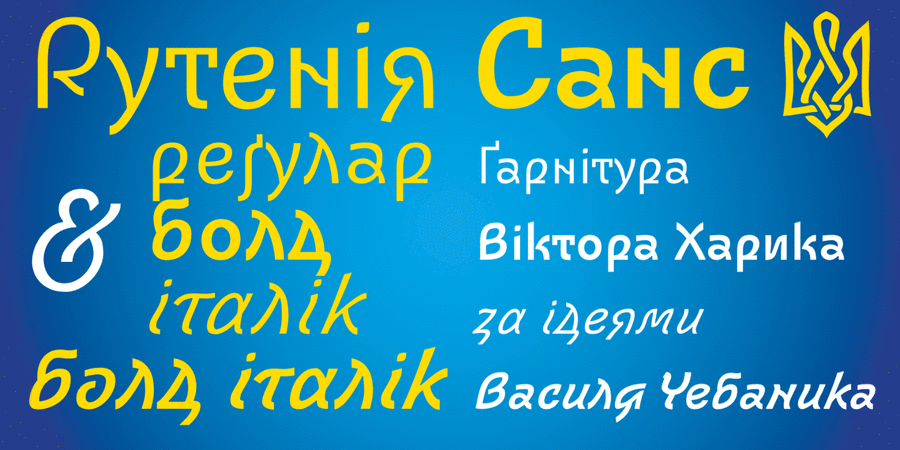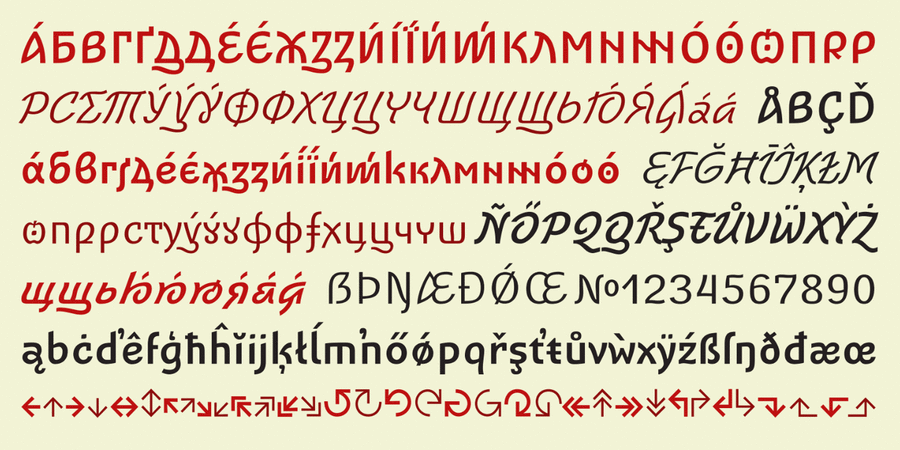
About Ruthenia SansThis typeface is the embodiment of the ideas of the famous Ukrainian calligrapher Vasyl Chebanyk to restore the individual features of the Ukrainian alphabet and rid it of forced moscowization and approaching to the "Civil Script" of Peter I. Ruthenia Sans is a modern Ukrainian sans serif with a touch of calligraphy for a wide range of tasks. It also contains historical alternatives, fractions and old style figures, Cyrillic alphanumeric system, decorative floral symbols and a wide range of arrows. Ruthenia Sans can work as a grotesque pair with the original Rutenia typeface, thus creating a type system. The typeface was designed by Victor Kharyk in 2019-2022.
Associations for font family Ruthenia SansTypeface personality and character:
pleasant, friendly, polite, orderly, organic, confidence, original, interesting, plastic, flexible, smooth, high-quality, dynamic, alive, honest, healthy, positive, warm, daring, distinctive, freewheeling, ethnic, natural, traditional, free, picturesque, artistic, heroic, temperamental, active, tribal, man-made, green, expressive, curved, benevolent, affable, rhythmic, fast, vegetable, creative, poetic, self-assured, stable, convincing, motivating
Typeface associated with activities:
history, culture, museum, literature, theater, reconstruction, folklore, music, tattoo, souvenir, heraldry, monument, memorial, dance, decoration, art, trophy, reward, embroidered, ethnography, bank note, coin, tourism, nature, graphics, illustration, landscape, Cossack, poetry, alcohol, snack, spice, beer, tavern, pub, cinema, vodka, castle, flag Typeface associated with age: